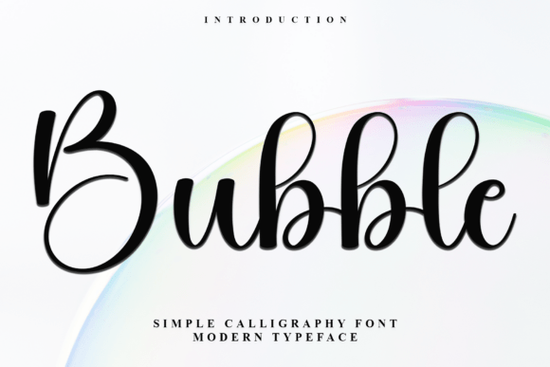
Bubble Font Font is a unique and stylish typeface that adds a playful yet elegant touch to any design. Whether you're working on a personal project or creating something for clients, this font offers a fresh and modern look that stands out. Its soft curves and delicate details make it perfect for a wide range of applications, from branding to invitations and more.
One of the key features of Bubble Font Font is its ability to bring a sense of lightness and charm to any text. The font’s distinctive strokes give it a special character that makes it ideal for projects requiring a gentle, artistic touch. From greeting cards to social media graphics, this font can help elevate your work in a subtle but impactful way.
What Makes Bubble Font Font Unique?
Bubble Font Font stands out due to its balanced mix of simplicity and detail. Unlike many other fonts that can feel too rigid or overly complex, this one offers a natural flow that feels both approachable and professional. The font includes a wide range of characters, ensuring that you have everything you need for most design tasks.
Its soft appearance makes it particularly well-suited for creative projects that aim to evoke a sense of warmth or whimsy. Whether you're designing for a boutique business, a craft project, or a digital artwork, this font can add a unique visual element that sets your work apart.
Best Uses for Bubble Font Font
This font is especially useful for designers who want to add a touch of personality to their work. It works well for headings, logos, and banners where a bit of flair is needed. For crafters, it can be a great choice for custom labels, stickers, and handmade items that require a stylish yet readable font.
Print-on-demand sellers will find it helpful for creating eye-catching products like t-shirts, mugs, and posters. Its readability at smaller sizes makes it practical for use in product descriptions and packaging. Small businesses looking to create a cohesive brand identity may also benefit from using this font in their marketing materials.
How to Use Bubble Font Font Effectively
To get the most out of Bubble Font Font, consider pairing it with simpler typefaces for contrast. This helps maintain readability while still allowing the font to shine in key areas. For example, using it for headlines and a more standard font for body text can create a clean and professional layout.
It's also important to test the font in different sizes and contexts. While it looks great in larger formats, it may not be the best choice for long paragraphs. Experimenting with how it appears in various settings will help you determine the best ways to incorporate it into your designs.
Final Thoughts
Bubble Font Font is a versatile and visually appealing choice for anyone looking to add a touch of creativity to their work. Its soft, unique design makes it suitable for a variety of projects, from personal crafts to professional branding. Whether you're a designer, crafter, or small business owner, this font can help you express your ideas in a fresh and engaging way.
As you explore its potential, remember to experiment with different uses and pairings. This will help you discover the best ways to integrate it into your workflow. With the right approach, Bubble Font Font can become a valuable asset in your design arsenal.
- Try using it for headings and titles to highlight key elements.
- Pair it with a simpler font for better readability in longer texts.
- Test it in different sizes and formats to see how it performs.